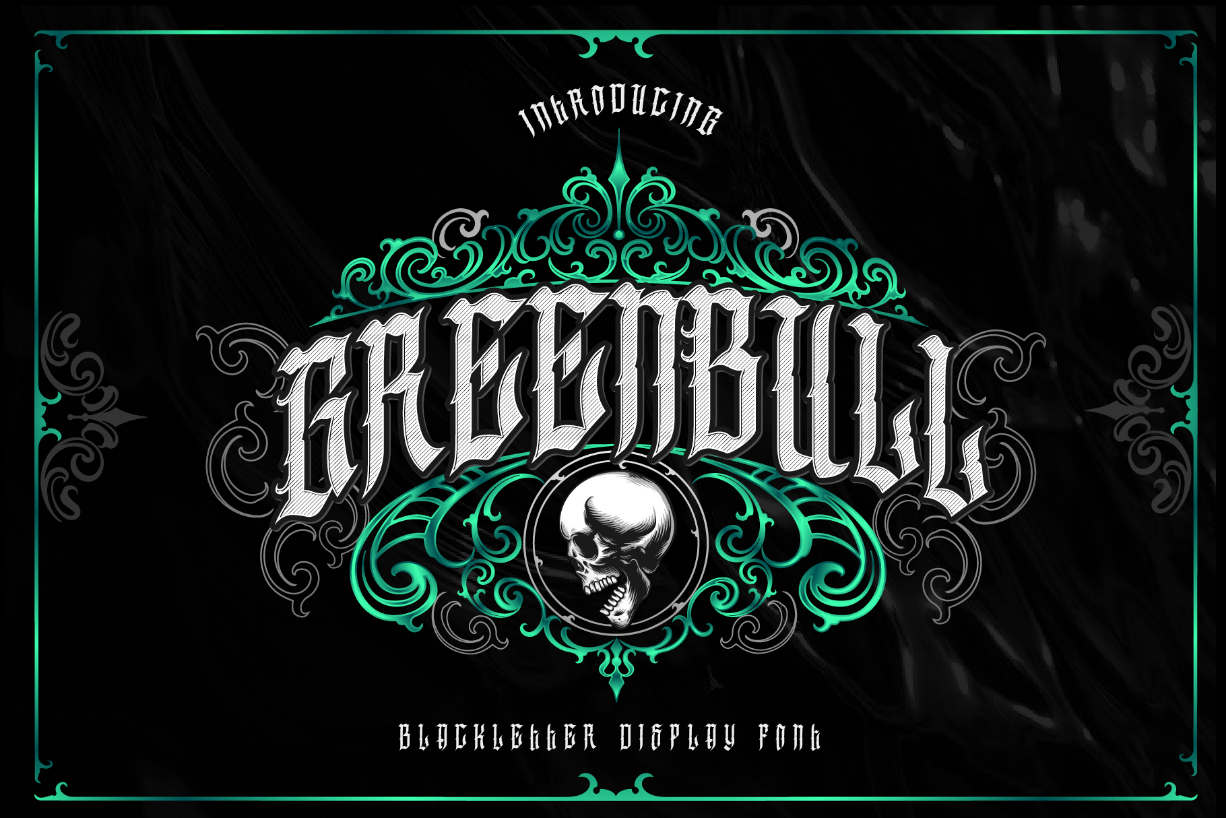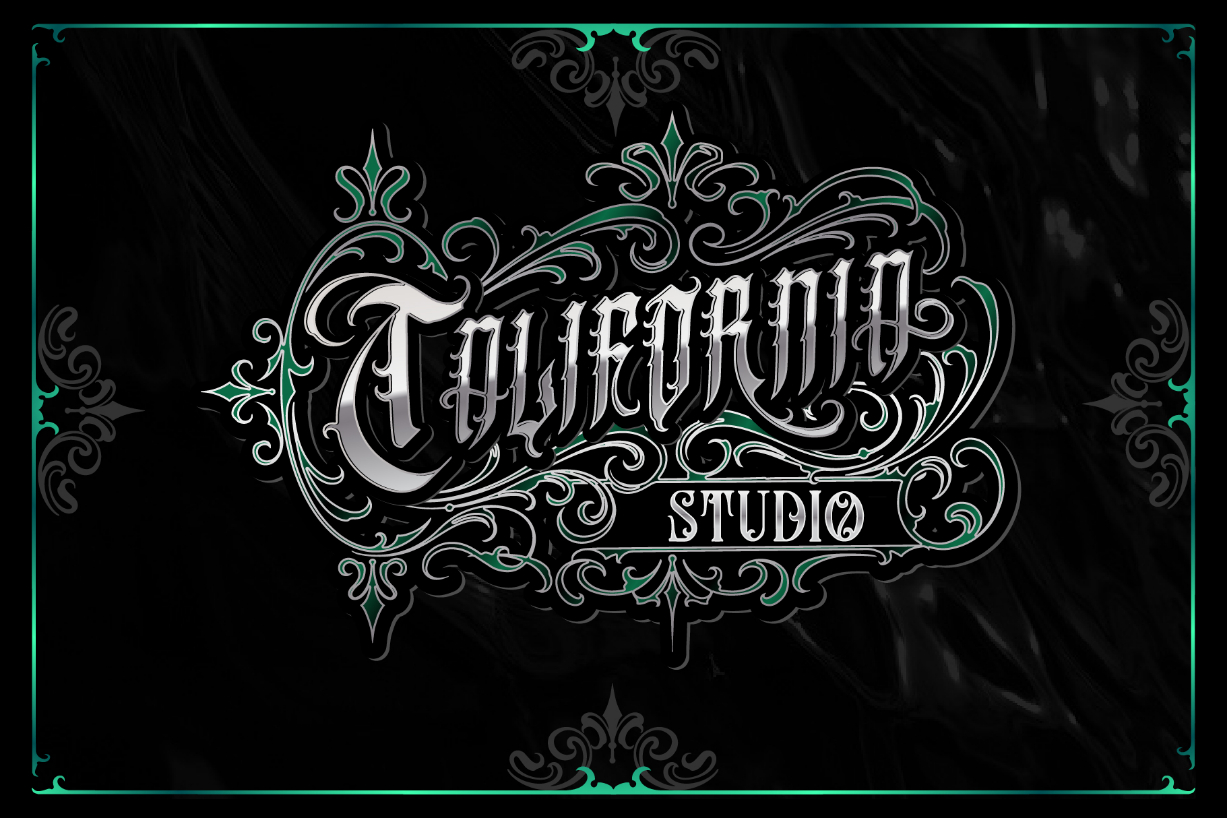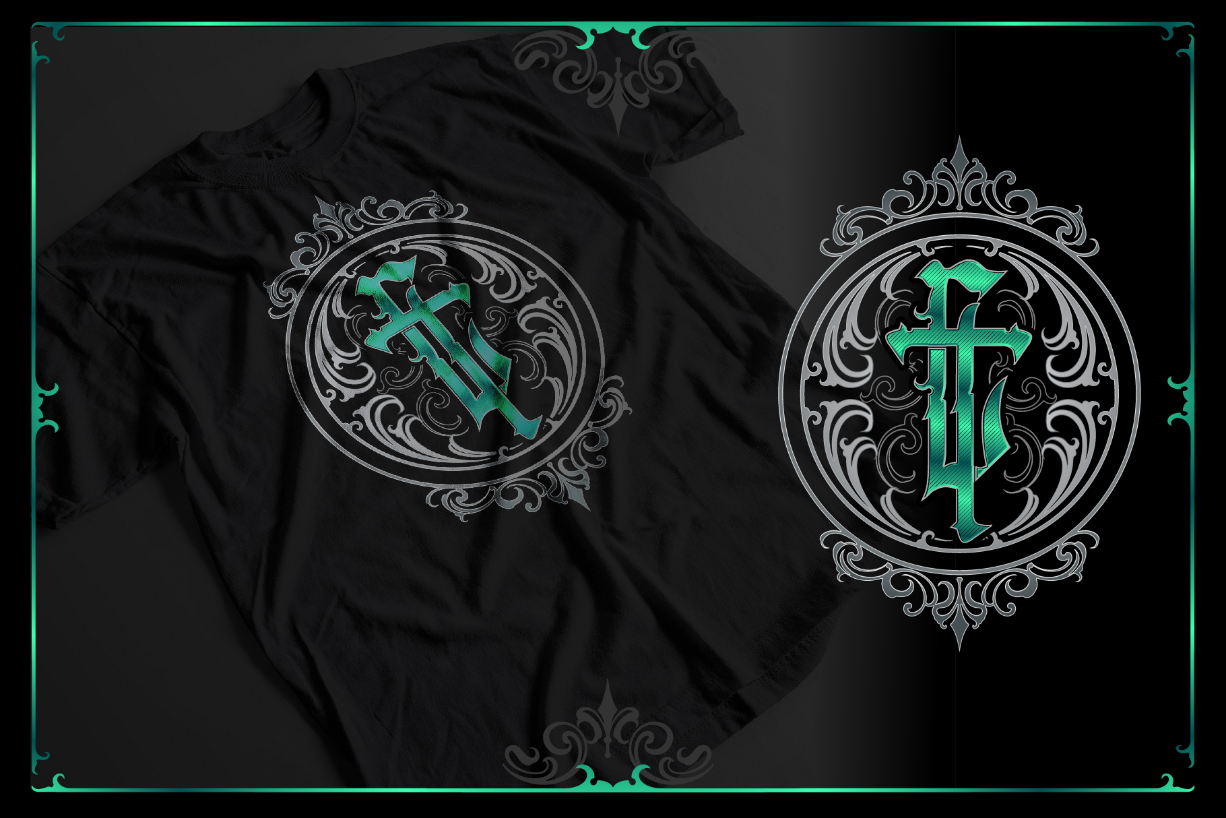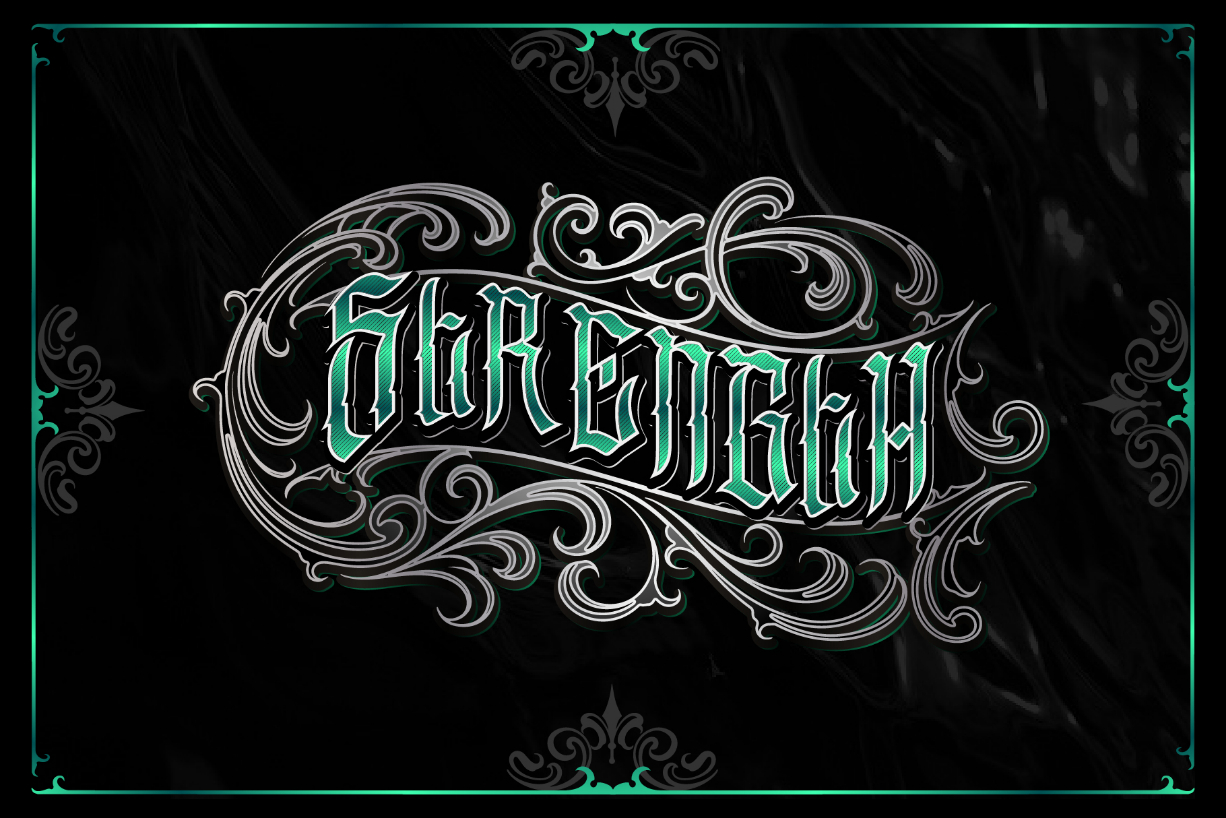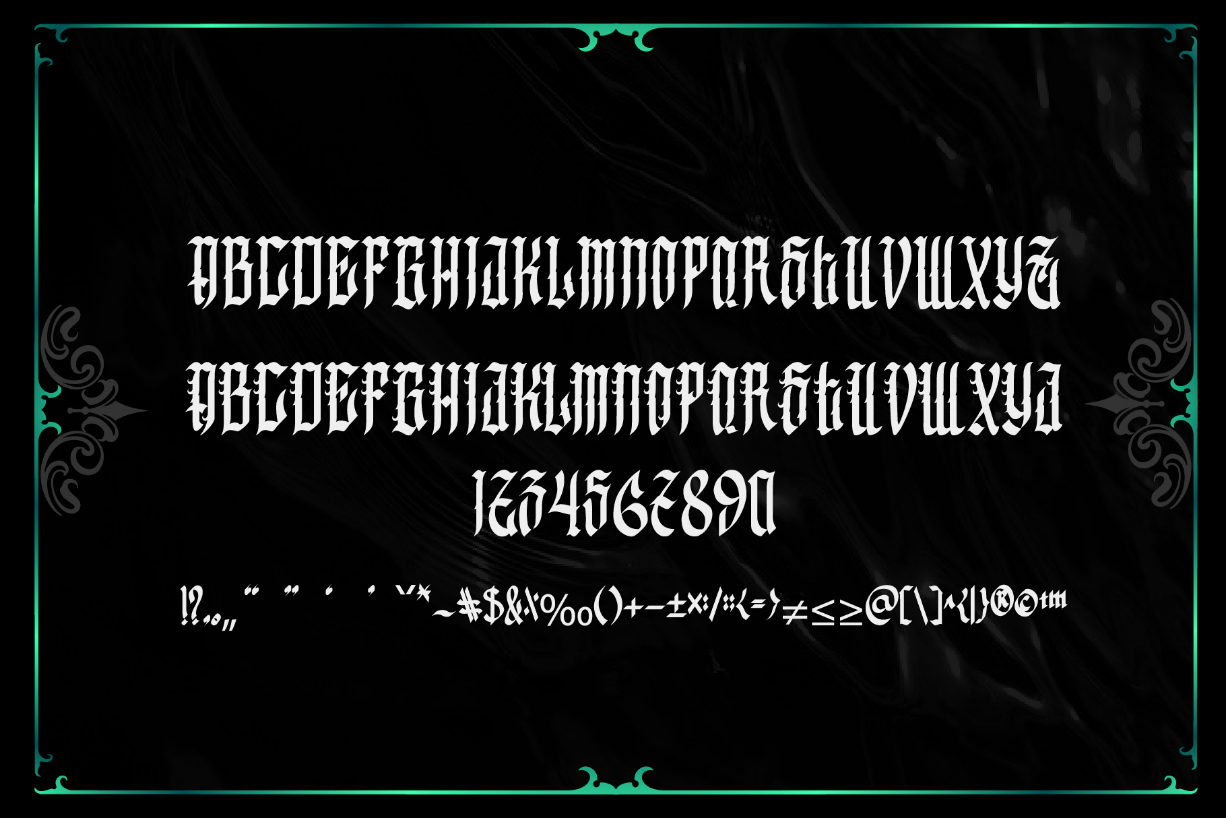
Greenbull Font
About Greenbull Font
Greenbull is a bold and authentic blackletter font. Dramatic and powerful, this font will make each of your design ideas stand out!